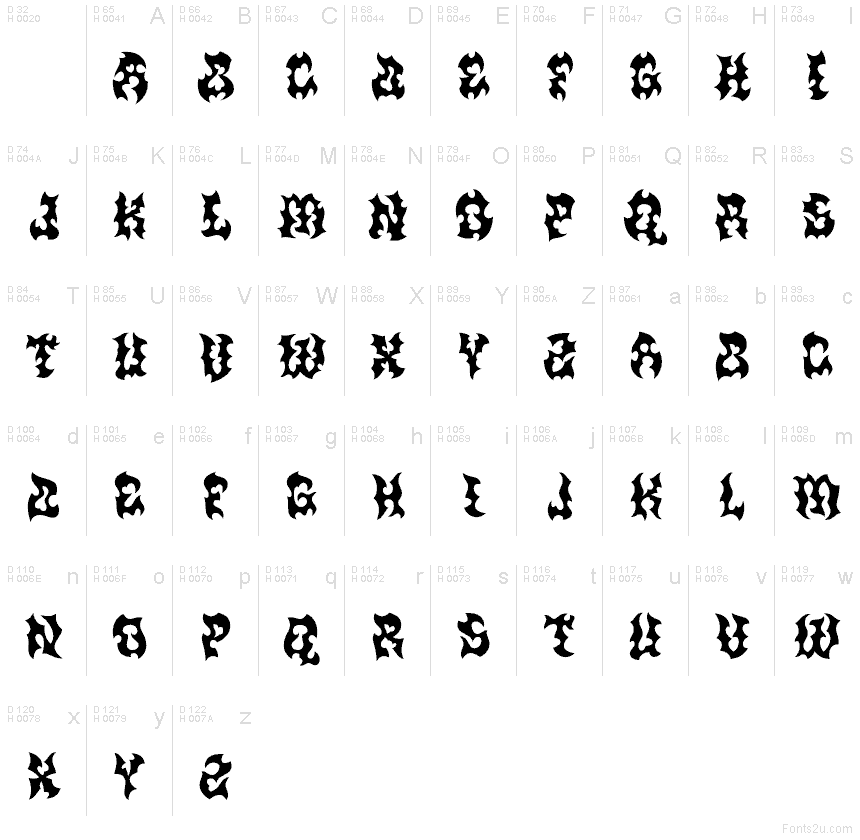
CS Ravemous Regular Demo
CS Ravemous font by Craft Supply Co. is a bold display typeface with scary fire style effects. It portrays an extravagant style achieved using edgy lines, pointed edges, ornaments, curves, and decorative dots. The architecture for world-famous goth churches can be greatly referenced in the visual appearance of this font that has a strong flaming vibe.
CS Ravemous will look wicked on horror movie posters and trailer covers that’ll keep viewers scared and intrigued at the same time. Other use cases include campaign ads, game texts, headlines in themed magazines and newspapers, digital artwork pieces for Instagram or Pinterest posts, and typography merchandise items like T-shirts!